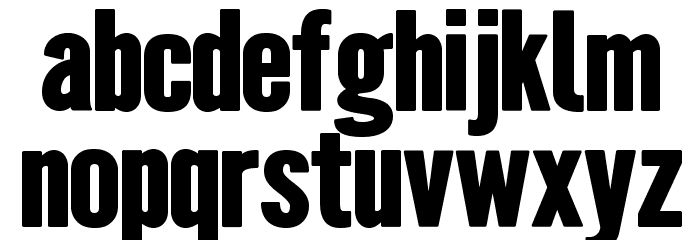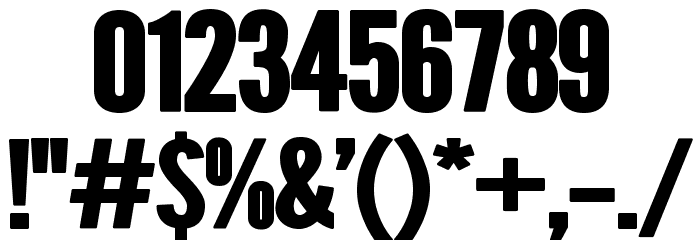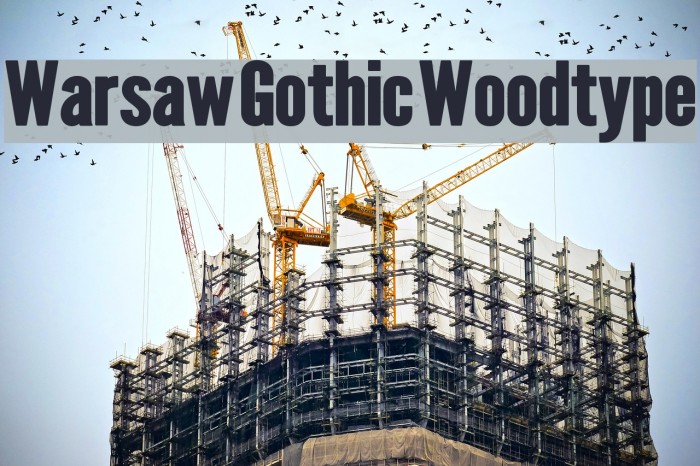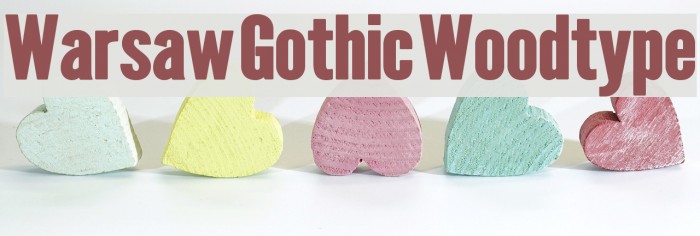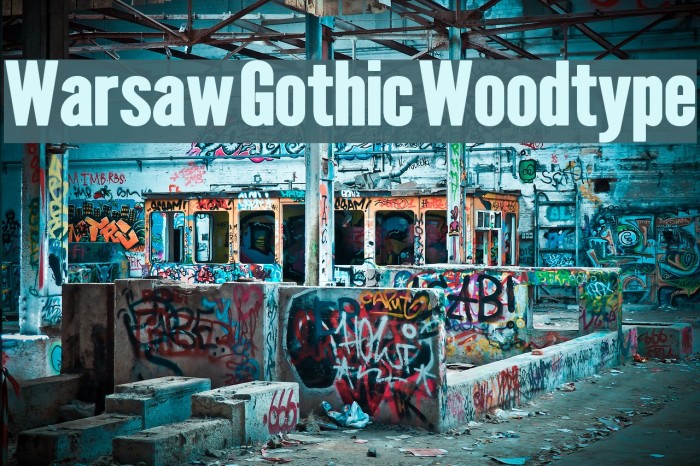
Warsaw Gothic Woodtype Font
This font is a bold, impactful typeface with a strong presence. Its thick, uniform strokes and solid structure make it ideal for grabbing attention. The uppercase and lowercase letters are well-proportioned, with a consistent weight throughout. The numbers and special characters maintain the same boldness, ensuring a cohesive look across all text elements. The font's design is reminiscent of traditional woodtype, offering a vintage yet timeless appeal. Its boldness and clarity make it suitable for a variety of applications where visibility and impact are key.
A bold, impactful typeface with a vintage woodtype aesthetic.
- Proposed Projects: Ideal for posters, headlines, signage, and branding projects that require a strong visual impact.
- Overall Style: Vintage